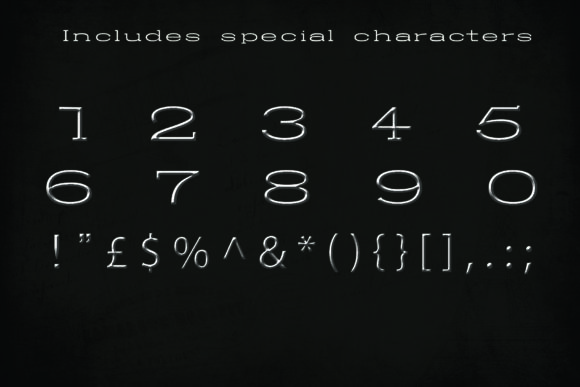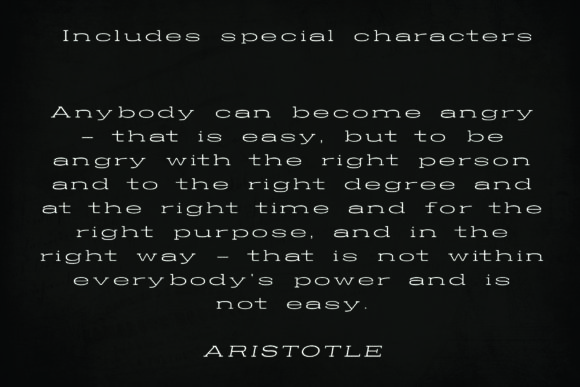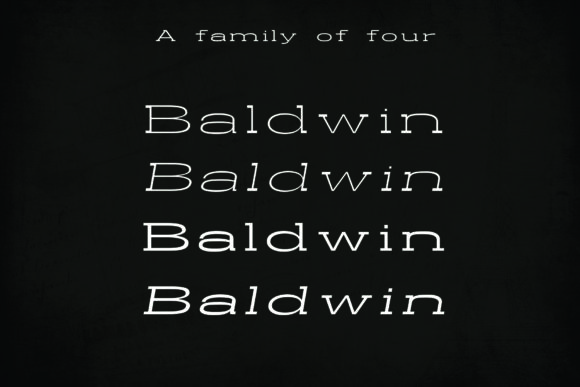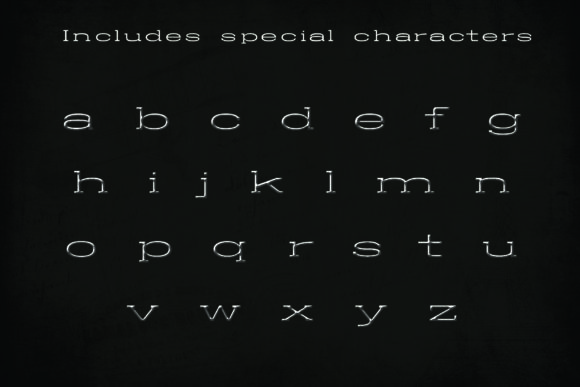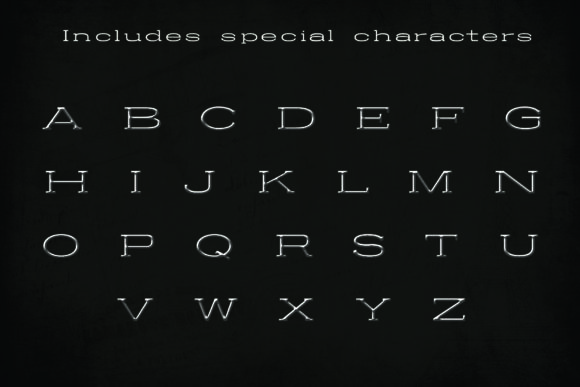
Baldwin Font – Free Download
Introduction to Baldwin Font
Baldwin is classic slab serif font that is perfect for use in any design project.
Comes in Regular, Italics, Bold, and Bold Italics .
Key Features of Baldwin Font